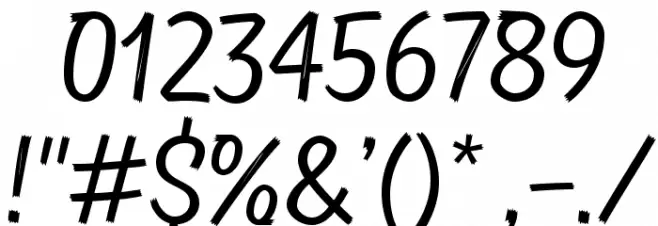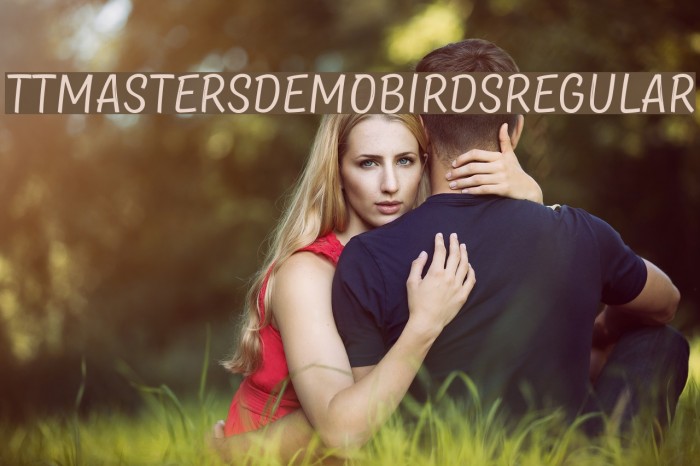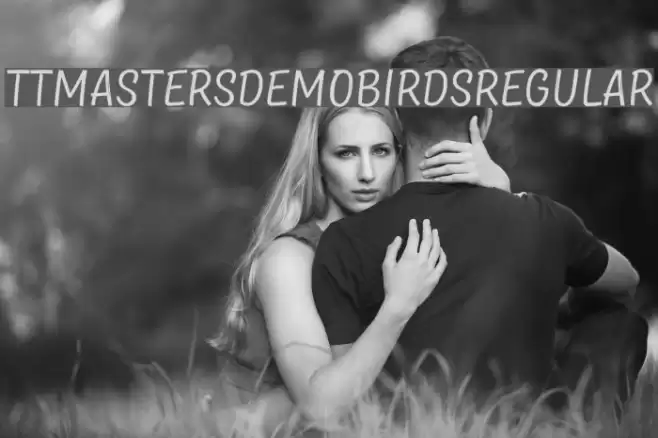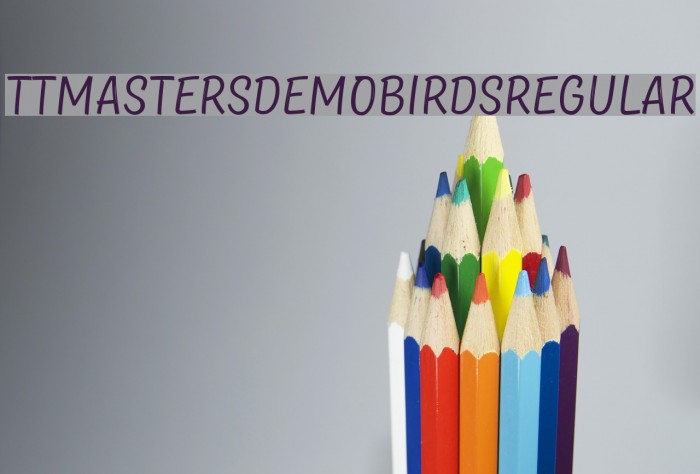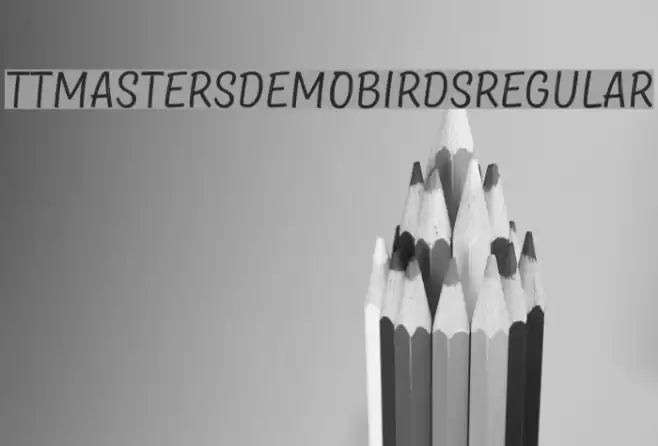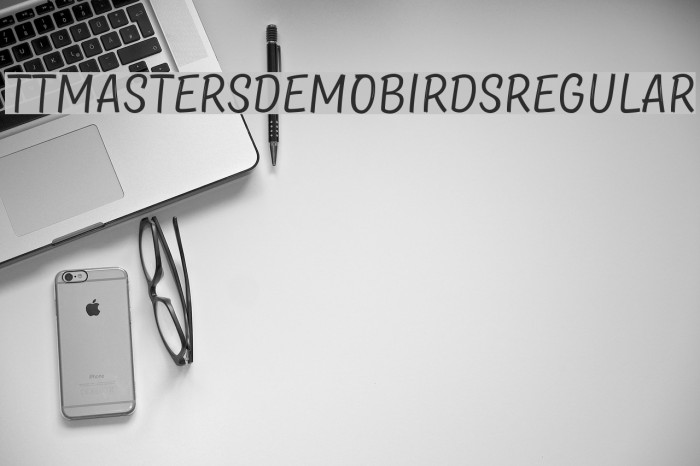
TTMastersDEMOBirdsRegular Font
TTMastersDEMOBirdsRegular Description
This font features a dynamic and energetic style, characterized by its slanted and slightly irregular letterforms. The strokes are bold and confident, with a hand-drawn quality that adds a sense of movement and personality. The uppercase and lowercase letters maintain a consistent slant, creating a cohesive look across the alphabet. Numbers and special characters are designed with the same lively flair, making them stand out in any composition. The overall appearance is both playful and assertive, making it suitable for projects that require a touch of creativity and boldness.